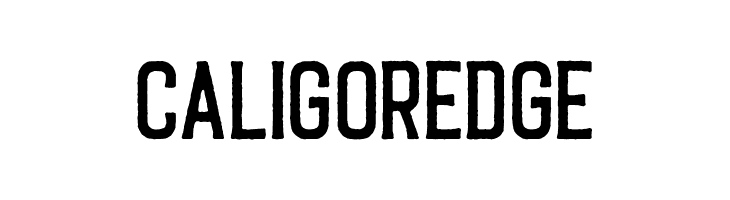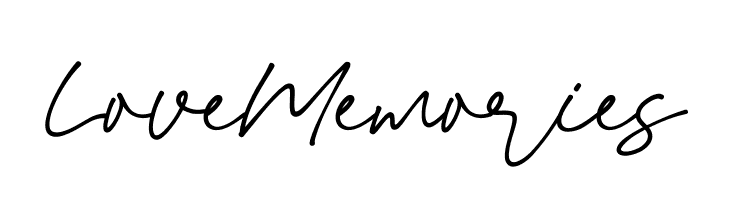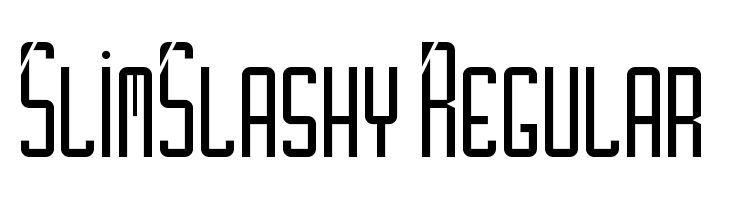
A bold, rugged font with a vintage industrial feel and textured edges.
A bold, decorative font with an inline style, offering a vintage yet modern look.
A bold, brushstroke-style font with an artistic and dynamic appearance.
A playful handwritten font with smooth, rounded edges and a casual flow.
A bold, cursive font with fluid, interconnected letters and elegant flourishes.
A bold, geometric font with dynamic curves and strong visual impact.
A series of hand gesture symbols representing letters and numbers, styled for clarity and recognition.
A bold, geometric font with sharp angles and a blocky design.
A bold, semi-italic font with a dynamic and impactful style.
A graceful, cursive script font with elegant, flowing lines and high contrast.